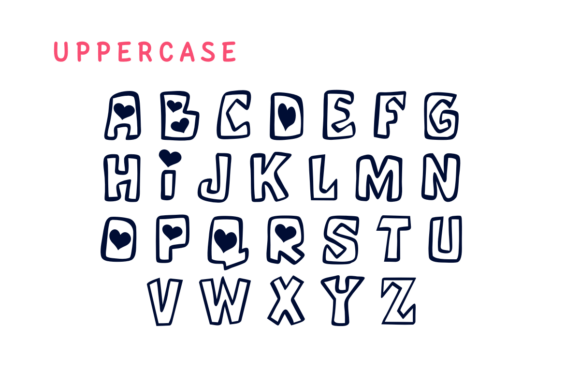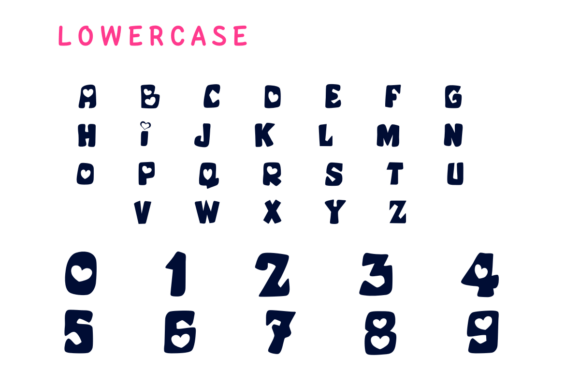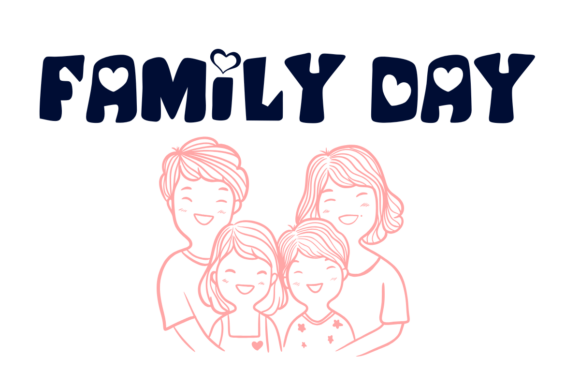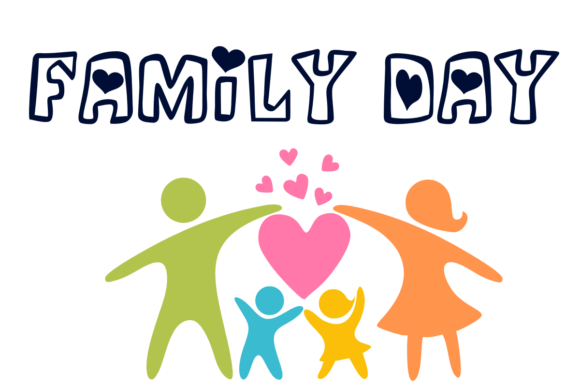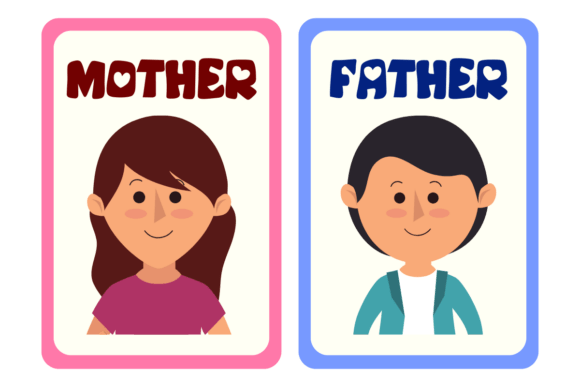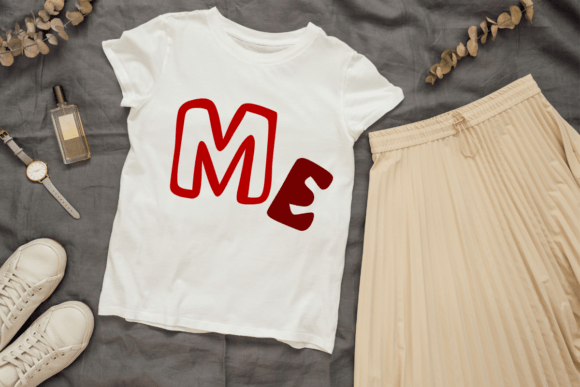
Dad Love Font: The Perfect Decorative Font for Your Creative Projects
Are you a designer, crafter, or DIY enthusiast looking for a unique and playful font to add a personal touch to your projects? Look no further than the Dad Love Font! This decorative font is perfect for creating handmade cards, crafting personalized gifts, and adding a touch of whimsy to your designs.
What is Dad Love Font?
Dad Love Font is a decorative font that is designed to resemble handwritten text with a playful and affectionate tone. The font is characterized by its bold lines, irregular shapes, and charming imperfections, giving it a warm and fuzzy feel that’s perfect for expressing love and appreciation.
Uses for Dad Love Font
While Dad Love Font is a decorative font, it’s surprisingly versatile and can be used for a wide range of projects, including:
- Taking notes: Add a personal touch to your notes and journals with this charming font.
- Writing a diary: Make your diary entries feel more special with this unique font.
- Creating greeting cards: Design beautiful, one-of-a-kind greeting cards for special occasions like birthdays, holidays, and anniversaries.
- Designing banners: Use Dad Love Font to create eye-catching banners for parties, events, or promotions.
- Content creation: Add a touch of personality to your blog posts, social media updates, and other online content.
- Mugs and water bottles: Design personalized mugs and water bottles with fun and inspiring quotes.
- Cards and invitations: Create custom cards and invitations for weddings, baby showers, and other special occasions.
- T-shirts and apparel: Design unique and stylish t-shirts, hoodies, and other apparel with Dad Love Font.
- Stationery and paper goods: Create custom stationery, notebooks, and paper goods with this charming font.
- Social media posts: Add a touch of whimsy to your social media posts and stories with Dad Love Font.
Why Choose Dad Love Font?
So, why choose Dad Love Font over other decorative fonts? Here are just a few reasons:
- Unique and playful: Dad Love Font has a distinctive and playful style that’s sure to stand out.
- Easy to read: Despite its decorative nature, Dad Love Font is surprisingly easy to read, making it perfect for longer texts.
- Versatile: This font can be used for a wide range of projects, from handmade crafts to digital designs.
- Emotional connection: Dad Love Font has a warm and fuzzy feel that’s perfect for expressing love and appreciation.
Tips for Using Dad Love Font
Here are a few tips for getting the most out of Dad Love Font:
- Use it sparingly: While Dad Love Font is beautiful, it can be overwhelming if used too much. Use it sparingly to add emphasis and interest to your designs.
- Pair it with other fonts: Experiment with pairing Dad Love Font with other fonts to create interesting and dynamic designs.
- Experiment with colors: Dad Love Font looks great in a variety of colors, so don’t be afraid to experiment and find the perfect hue for your design.
- Have fun: Most importantly, have fun with Dad Love Font! It’s a versatile and playful font that’s perfect for adding a personal touch to your designs.
Dad Love Font is a unique and versatile decorative font that’s perfect for designers, crafters, and DIY enthusiasts. With its playful and affectionate tone, it’s ideal for expressing love and appreciation in a wide range of projects. Whether you’re creating handmade cards, designing banners, or crafting personalized gifts, Dad Love Font is sure to add a touch of whimsy and personality to your designs. So why not give it a try and see what amazing creations you can come up with?